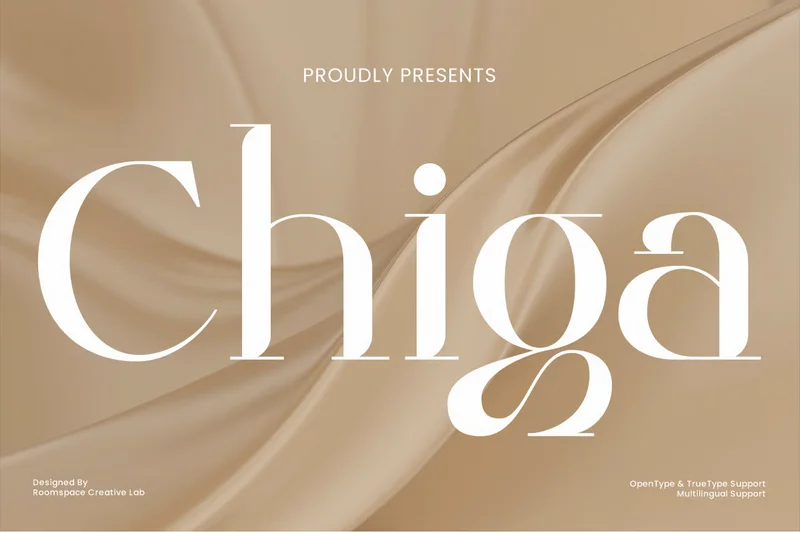
Chiga – Refined Serif Typeface for Modern Designer
Chiga is a bold serif display font that merges modern elegance with a stylish retro aesthetic. With its luxurious and unique letterforms, this font is designed to create a timeless, high-end look for logos, branding, headlines, and posters. Inspired by elegant typography, Chiga features a perfect balance between vintage charm and contemporary style, making it ideal for editorial designs, fashion branding, and statement typography. Its bold presence and refined details ensure that your text stands out effortlessly.